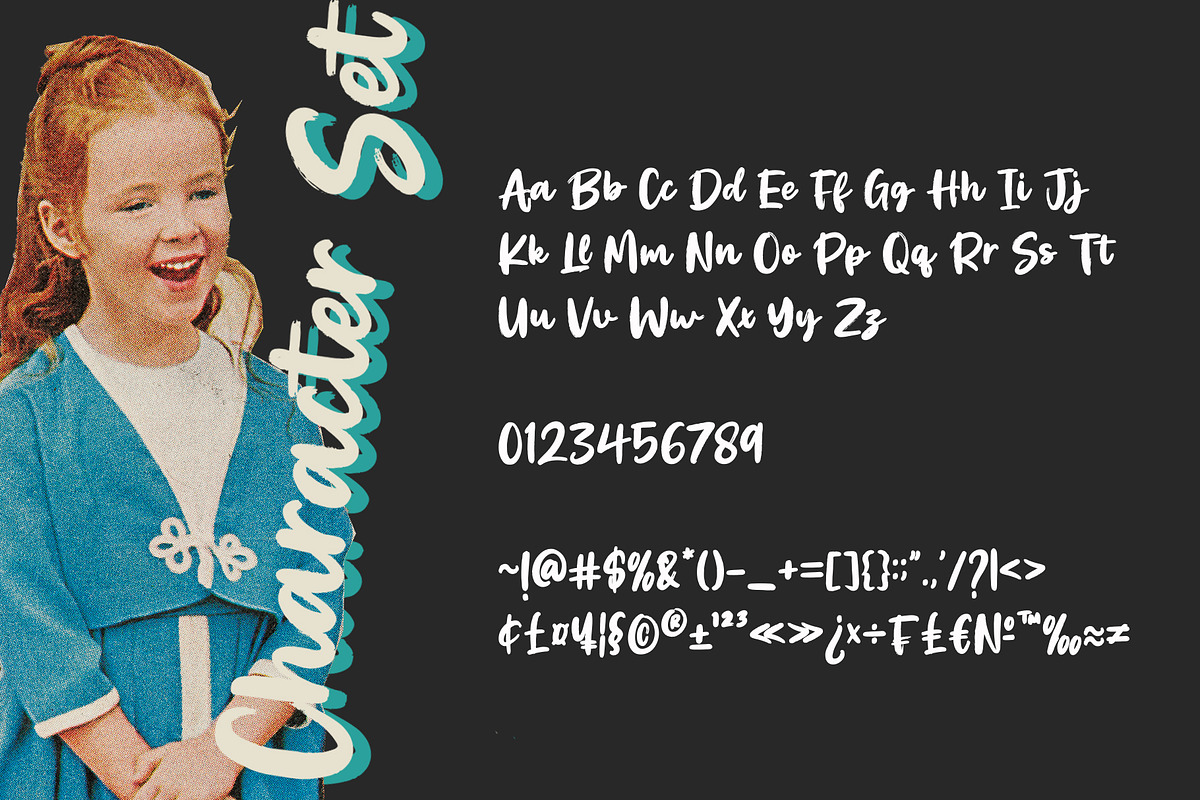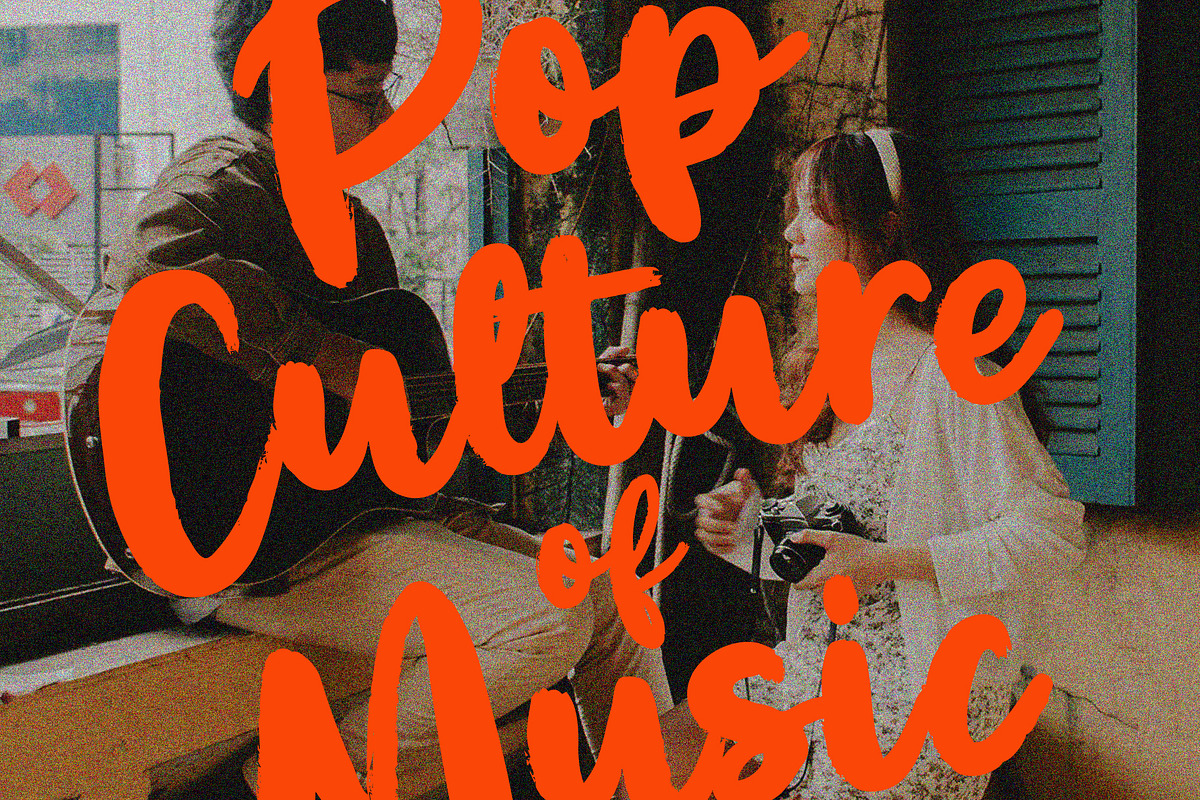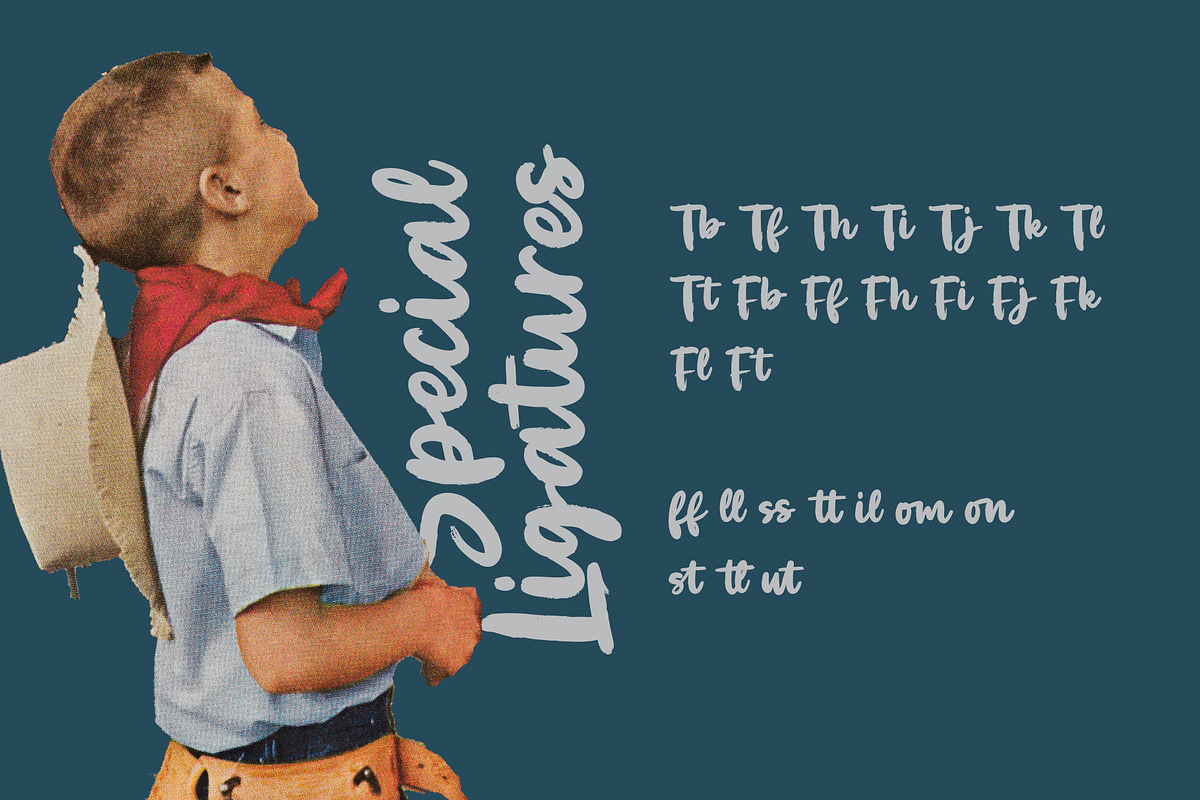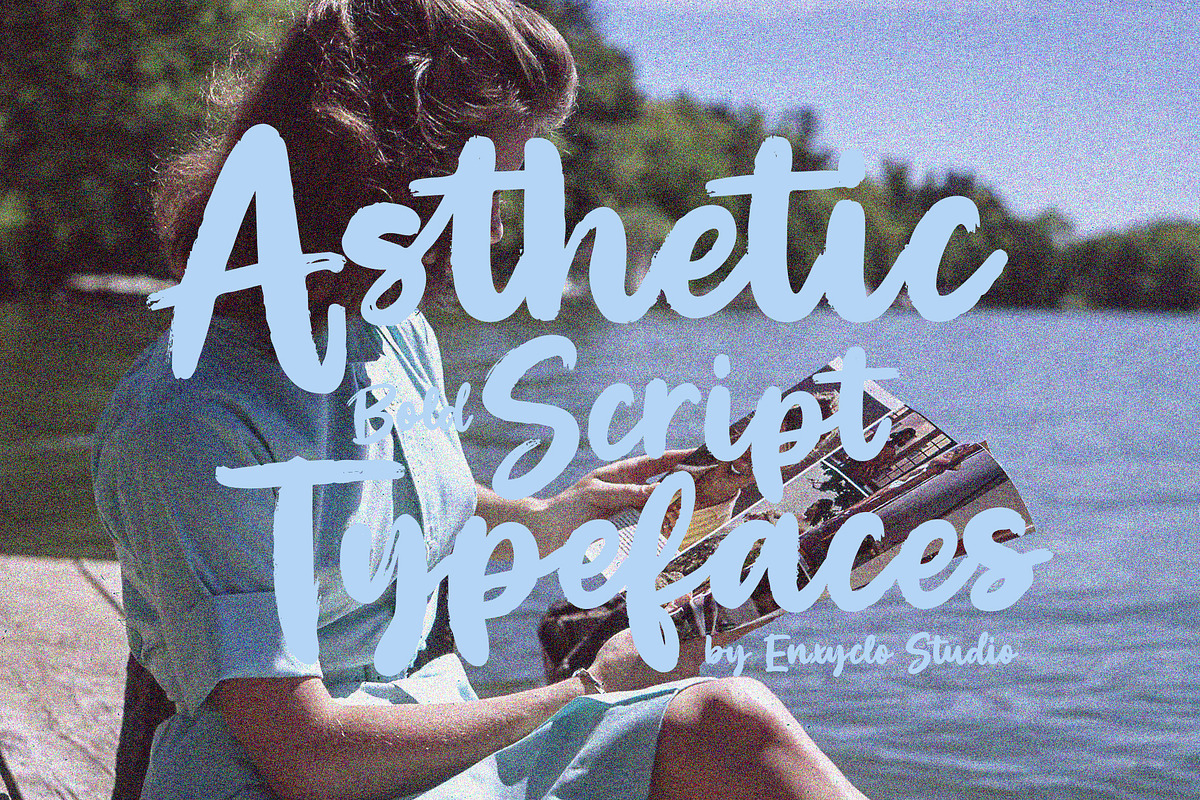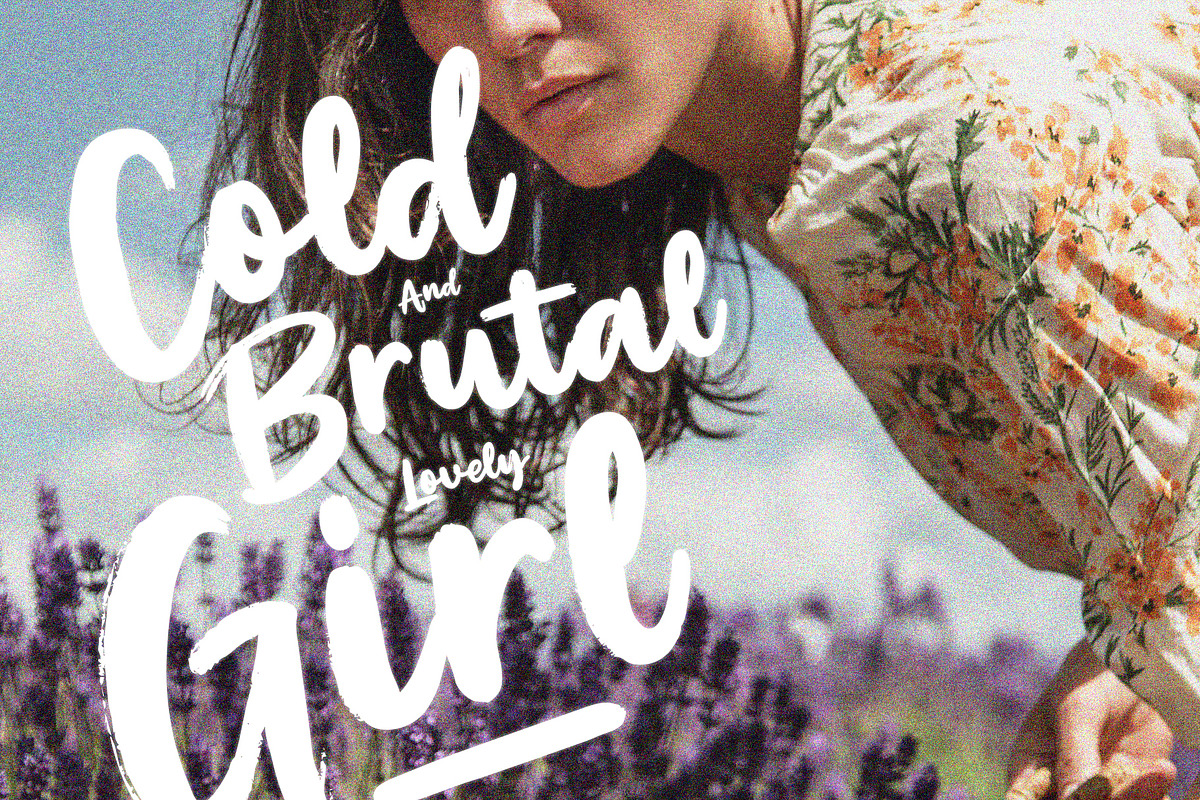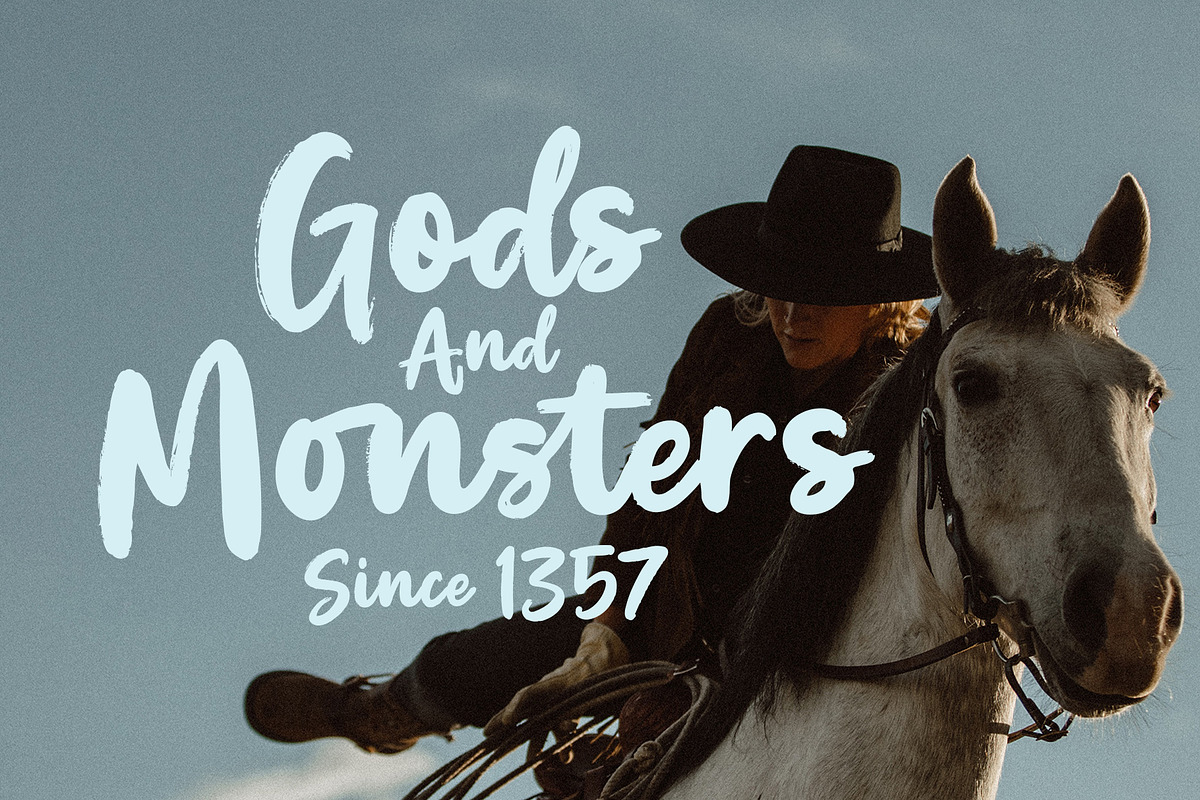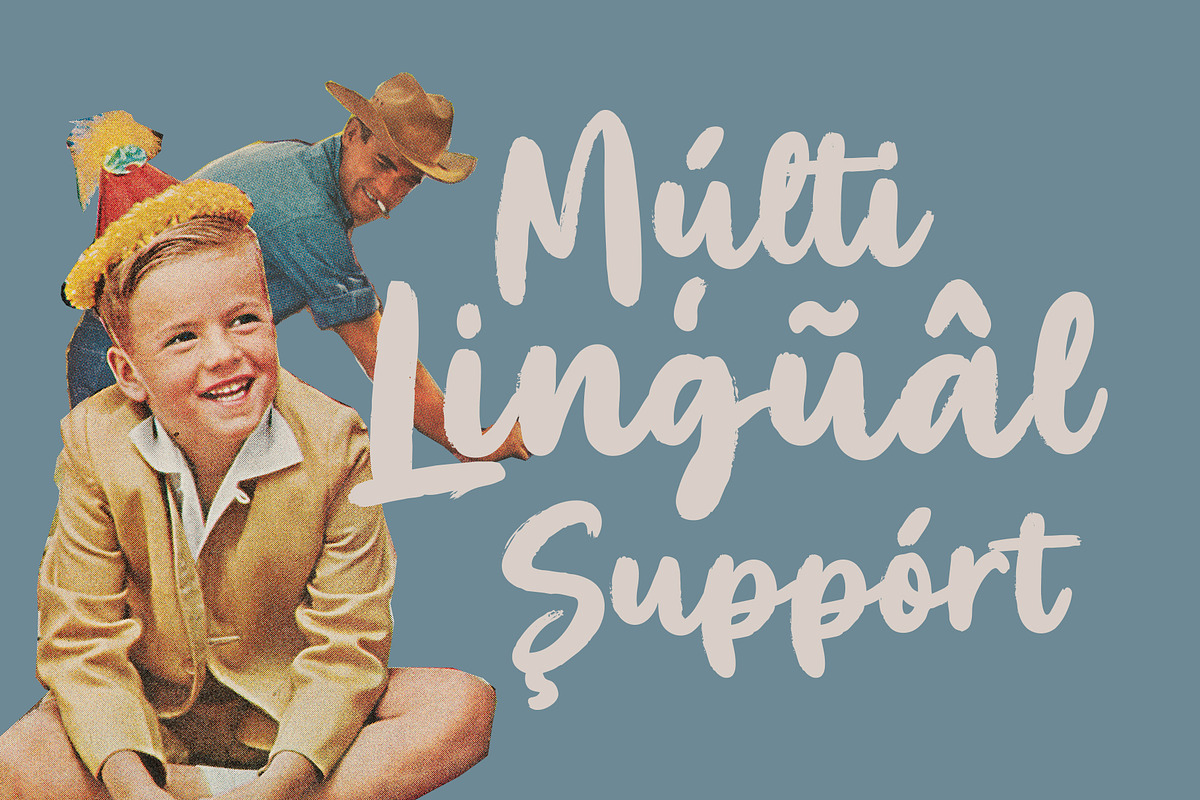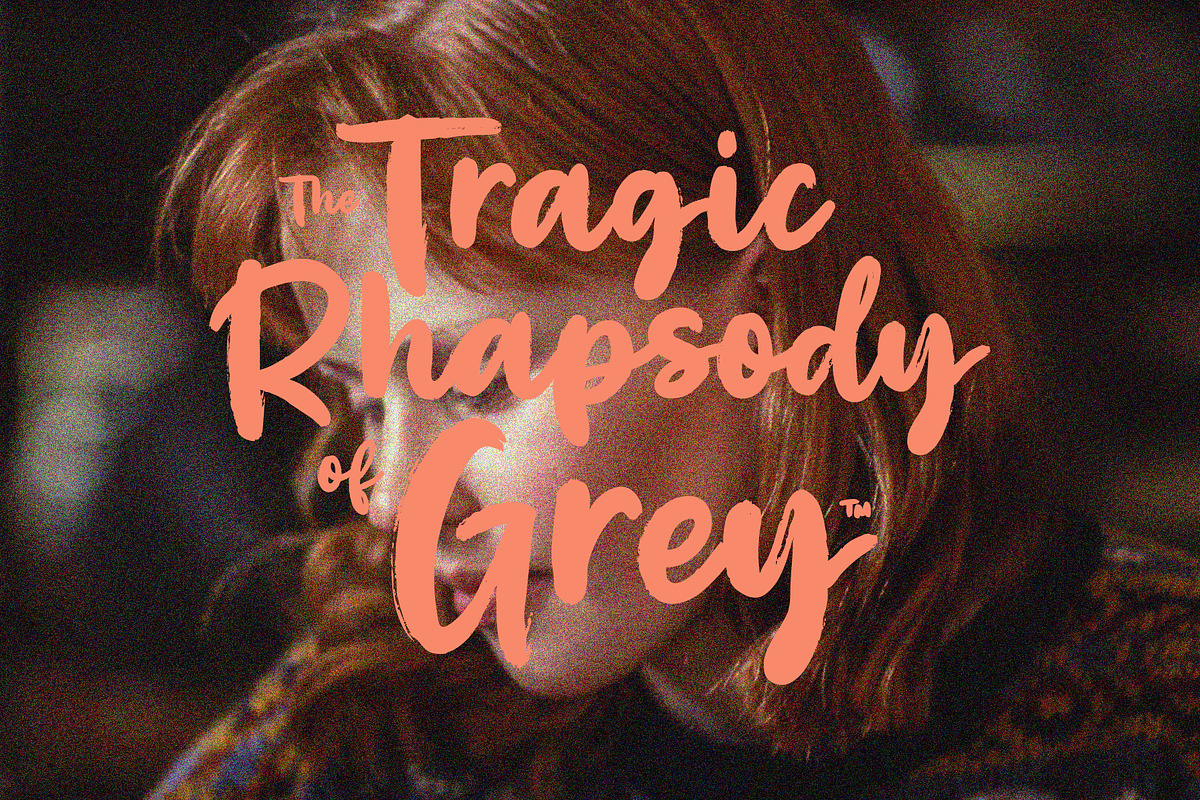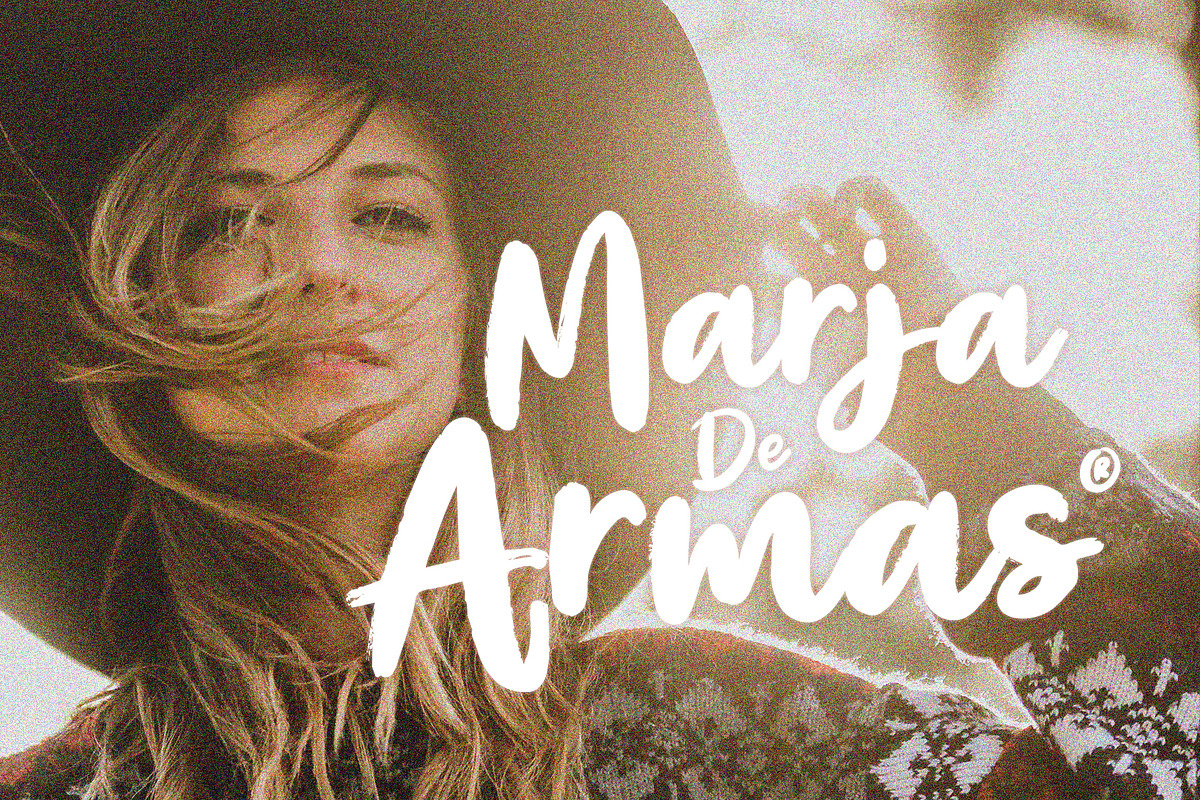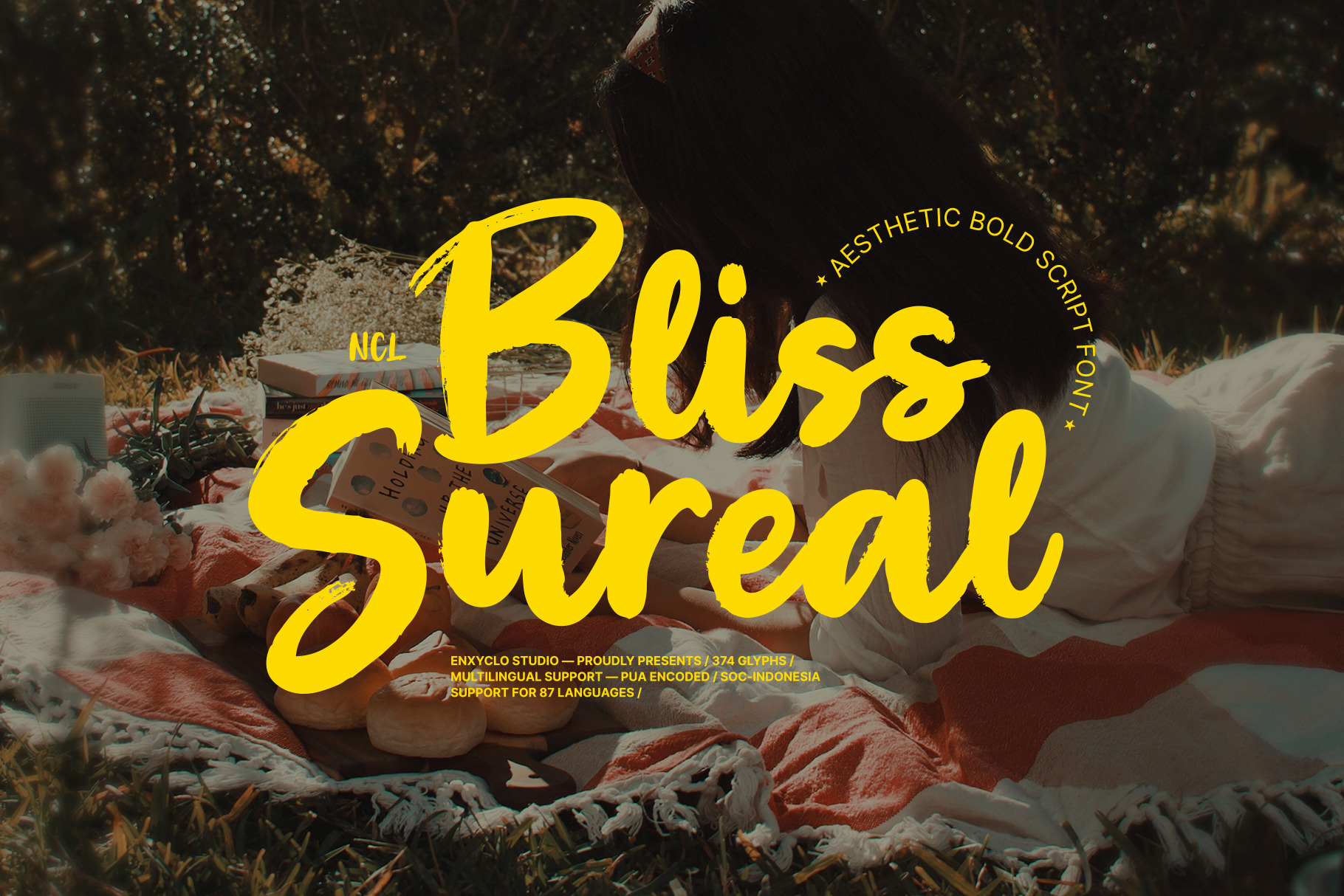
NCL BLISS SUREAL - Bold Script Font
NCL BLISS SUREAL is bold brush script font. It's fun, unique, stylish and modern-classic display font. Masterfully designed to become a true favorite, this font has the potential to bring each of your creative ideas to the highest level! It was purposely crafted to be used in large point sizes, although it doesn’t lose its magic in small point sizes. It is perfect for headline, billboard, magazines, website, titles, poster, branding, t-shirt design, and logos. No matter the topic, this font will be an incredible asset to your fonts’ library, as it has the potential to elevate any creation. With this beautiful font, absolutely you can make your project stand out from the rest. See the previews above to get some inspiration on how to use them.
- Contains 374 Glyphs
- Uppercase, Lowercase, & Numeral
- Punctuation, Symbol & Currencies
- 25 Ligatures
- Multilingual Support. Support for 87 languages: Afrikaans, Albanian, Asu, Basque, Bemba, Bena, Breton, Catalan, Chiga, Colognian, Cornish, Croatian, Czech, Danish, Dutch, Embu, English, Esperanto, Estonian, Filipino, Finnish, French, Friulian, Galician, German, Gusii, Hungarian, Indonesian, Irish, Italian, Kabuverdianu, Kalenjin, Kamba, Kikuyu, Kinyarwanda, Latvian, Lithuanian, Lower Sorbian, Luo Luxembourgish, Luyia, Machame, Makhuwa-Meetto, Makonde, Malagasy, Maltese, Manx, Meru, Morisyen, North Ndebele, Norwegian Bokmål, Norwegian Nynorsk, Nyankole, Oromo, Polish, Portuguese, Quechua, Romansh, Rombo, Rundi, Rwa, Samburu, Sango, Sangu, Scottish Gaelic, Sena, Serbian, Shambala, Shona, Slovak, Soga, Somali, Spanish, Swahili, Swedish, Swiss German, Taita, Teso, Turkish, Upper Sorbian, Uzbek (Latin), Volapük, Vunjo, Walser, Welsh, Western Frisian, Zulu.